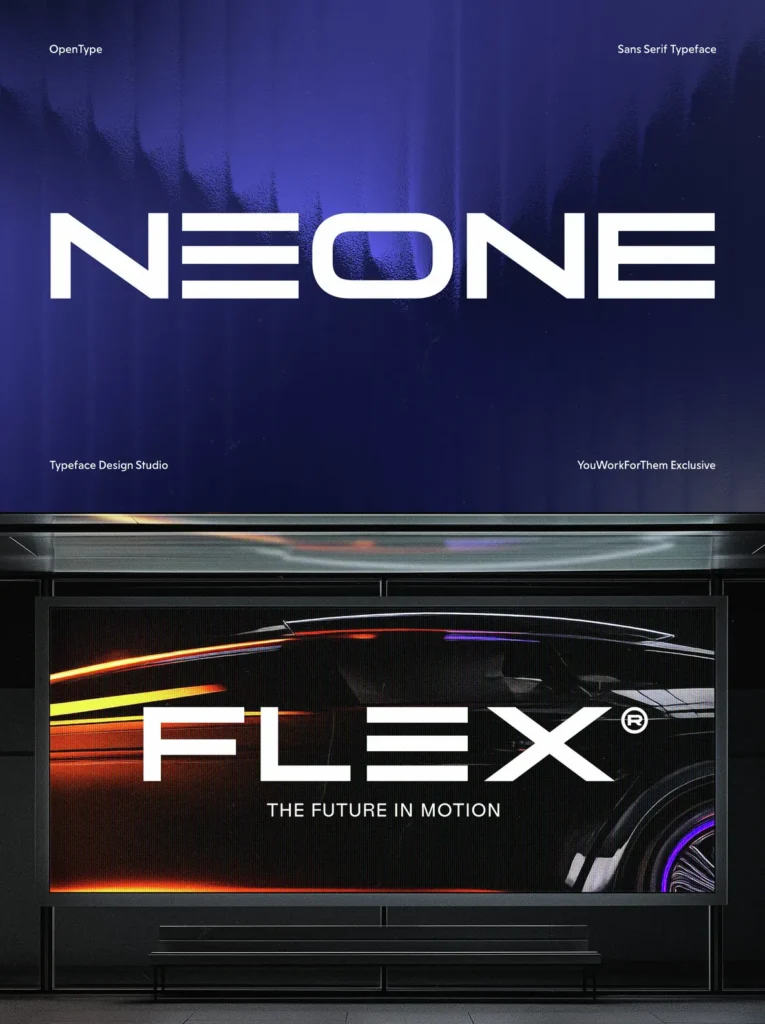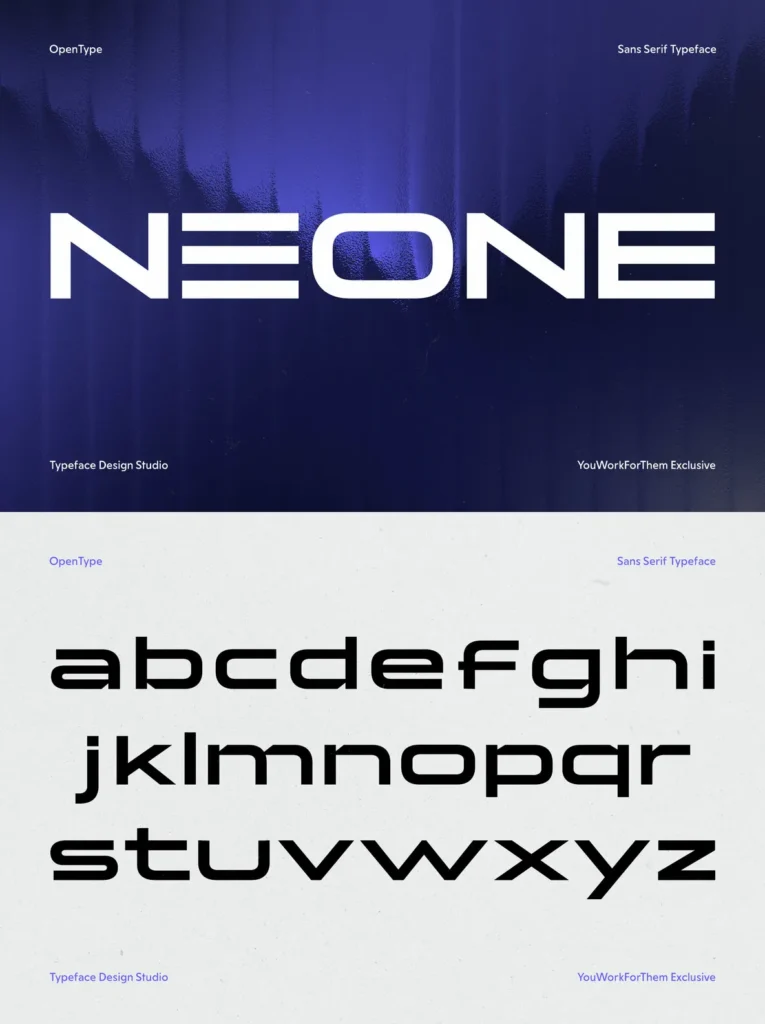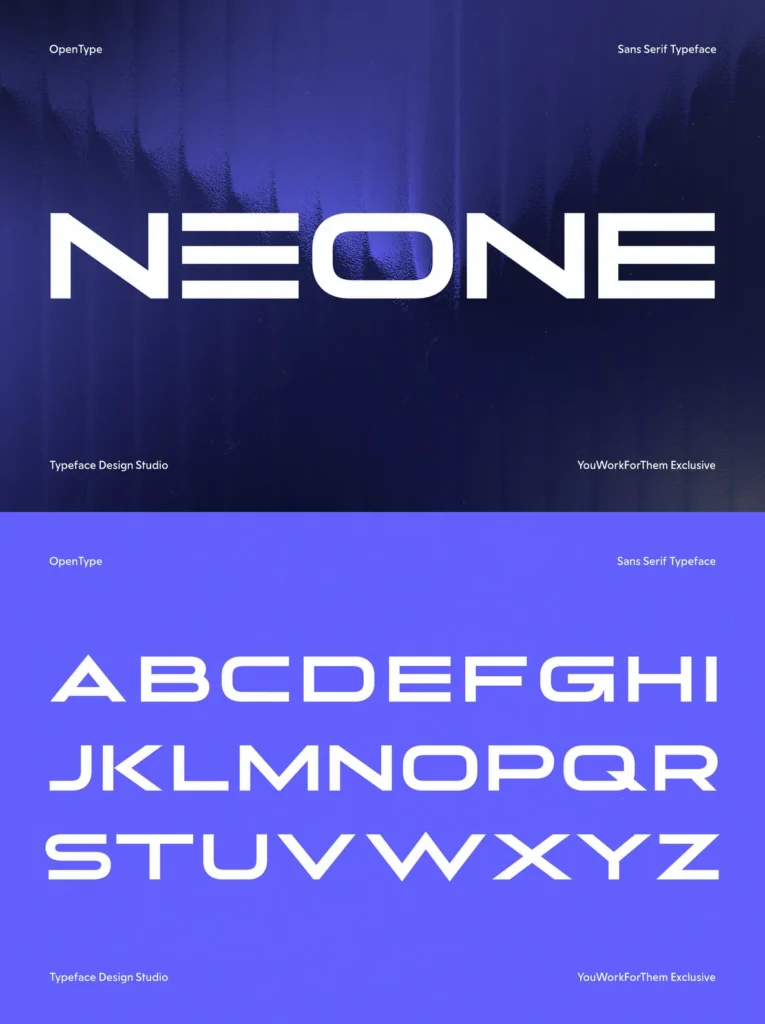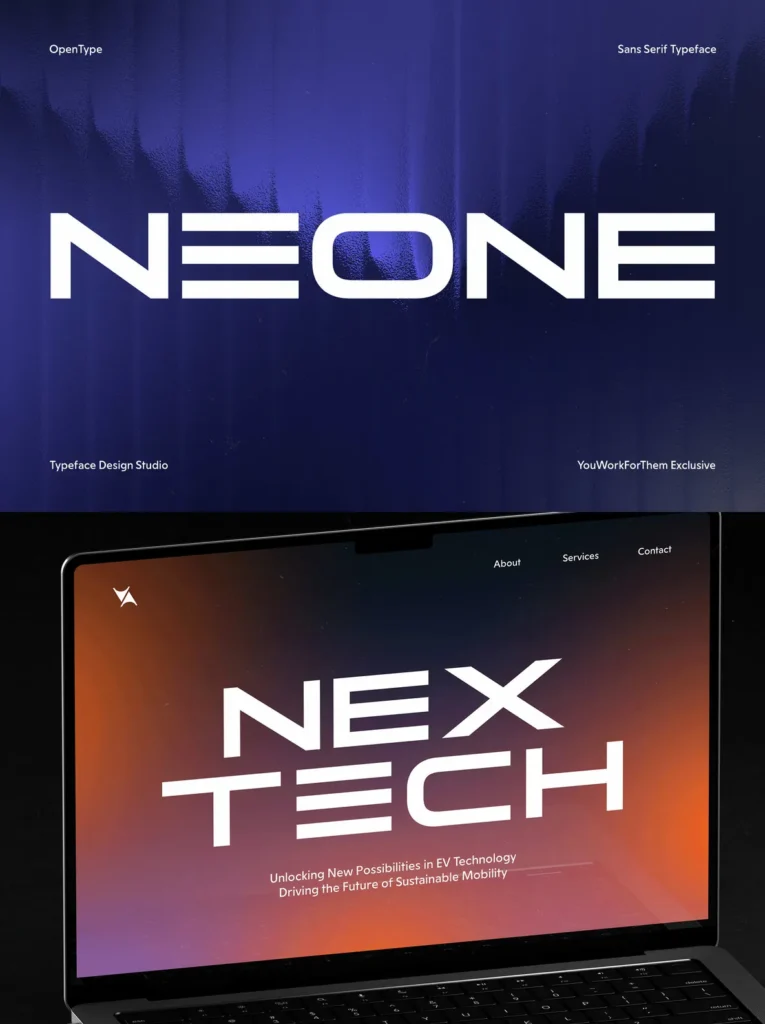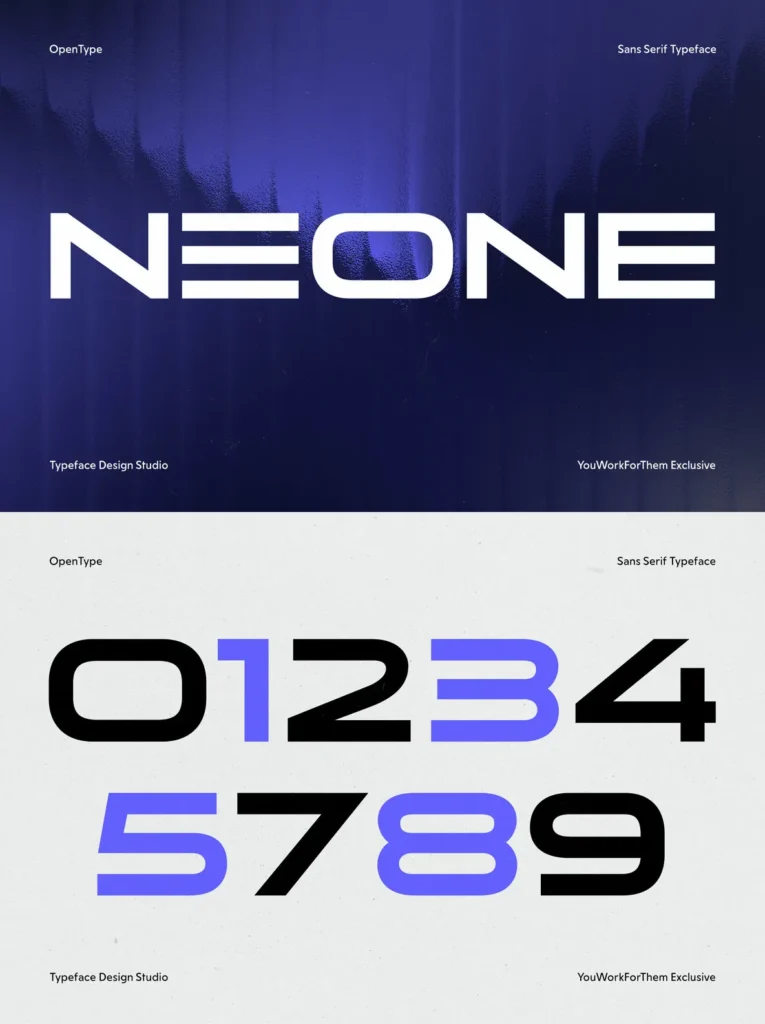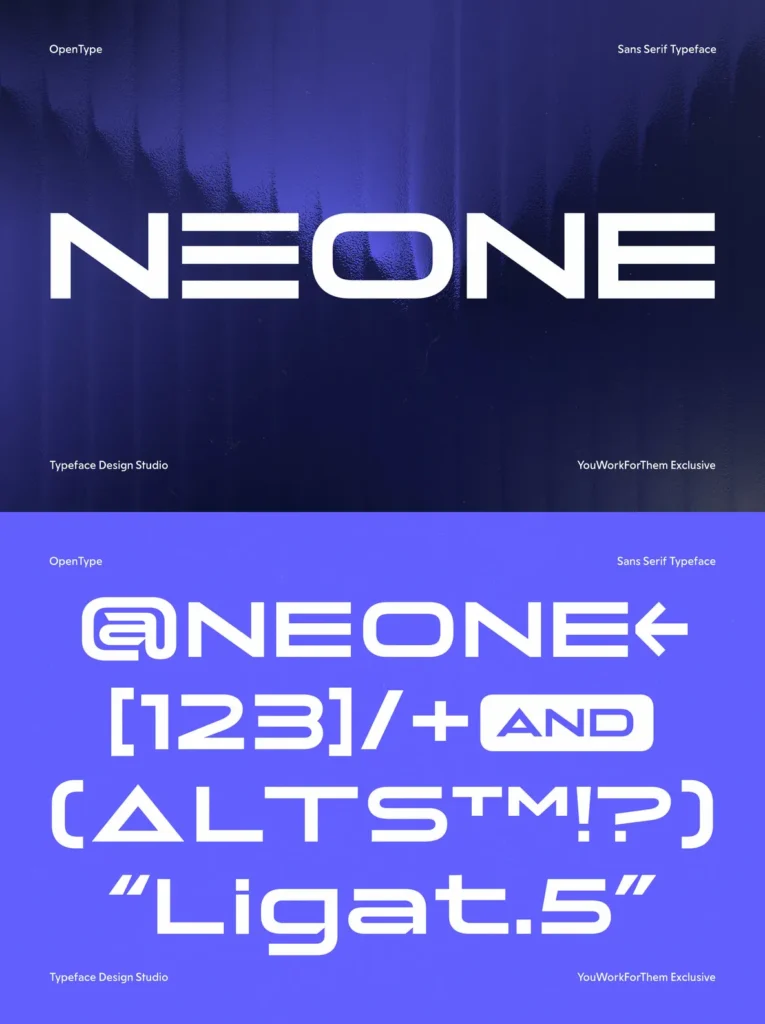
Introducing Neone: A Typeface for Modern Edge and Industrial Aesthetics
In the evolving world of digital design, Neone emerges as a bold testament to futuristic typography. Exclusively available at YouWorkForThem, this techno-style sans serif typeface encapsulates geometric precision and industrial allure, tailored for projects demanding a striking and authoritative presence.
Key Features and Applications
With its blocky, symmetrical letterforms, Neone is ideal for projects that require a commanding visual statement. Its applications span various modern and futuristic industries, from cryptocurrency platforms and finance to e-sports branding and technical interfaces. Whether you’re designing for cutting-edge sports teams or crafting impactful headlines, Neone ensures your visuals stand apart with strength and clarity.
Glyph Count
: Neone offers 362 meticulously designed glyphs, supporting an extensive range of languages, including Basic Latin, Western European, Baltic, Turkish, Central European, Romanian, and Pan African Latin.
OpenType Features
: Packed with advanced typographic tools, the font includes Access All Alternates, Discretionary Ligatures, Stylistic Sets, and more, allowing unparalleled customization.
Modern Versatility in Typography
What sets Neone apart is its adaptability. It’s equally at home in technical dashboards as it is in digital marketing campaigns, enabling seamless integration into diverse branding ecosystems. Neone is particularly effective for:
Headlines and Titles
: Create impactful headlines with an industrial and modern edge.
Logos and Branding
: Elevate brand identity for forward-thinking industries like crypto and fintech.
Event Marketing
: Perfect for e-sports, gaming conventions, or tech expos.